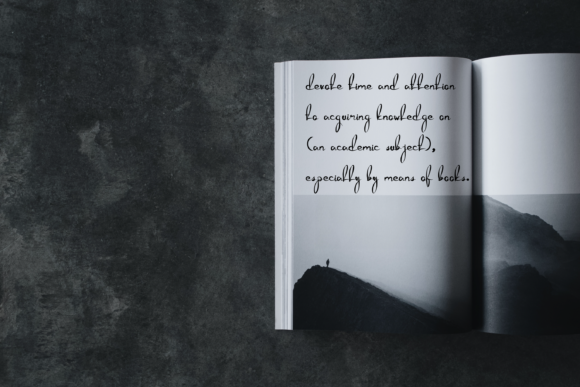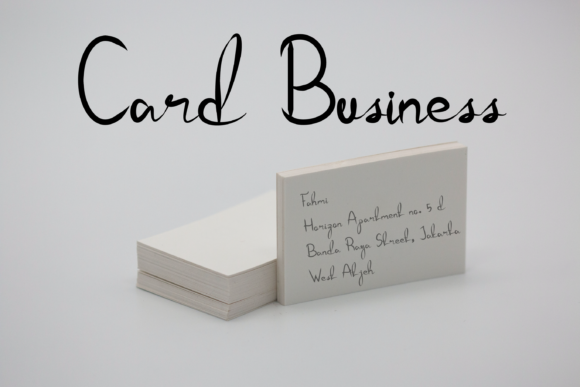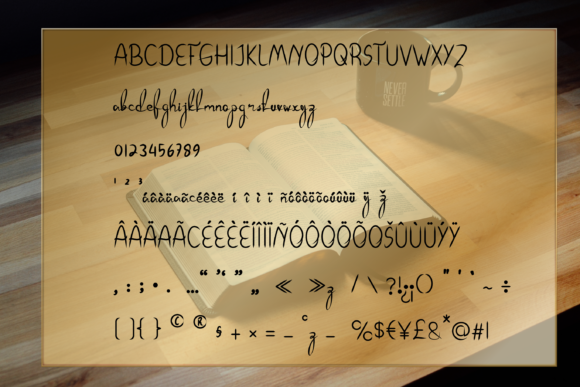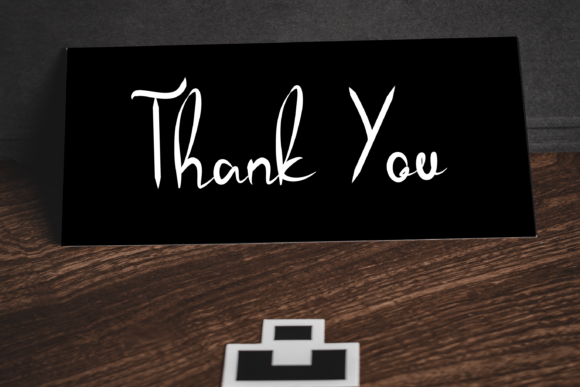
Study Font
About Study Font
Study is a graceful and refined handwritten font that exudes elegance and charm. With its delicate and stylish swashes, this font offers a unique and original look that is perfect for a wide range of crafty ideas. From letterheads and titles to stationery, Study brings a touch of sophistication to your projects.
The slender and dainty characters of Study give it a timeless appeal, making it suitable for various design purposes. Its elegant swashes add a touch of flair and artistic flourish, making it an excellent choice for creating visually appealing and eye-catching designs.
For letterheads, Study adds a touch of professionalism and sophistication to your business or personal correspondence. Its elegant and refined look ensures that your letterheads make a lasting impression on recipients, setting the tone for your brand or message.
When used in titles, Study enhances the visual impact of your designs, making them stand out and grab the attention of viewers. Its delicate swashes can be creatively incorporated into the design to add a touch of artistry and creativity.
For stationery, Study offers a chic and stylish option that elevates the aesthetics of your cards, invitations, and notes. Whether it’s for weddings, parties, or special events, the elegant look of Study brings a sense of luxury and refinement to your stationery designs.
Beyond these specific applications, Study can also be used for a wide range of crafty ideas and DIY projects. Its versatility allows it to be applied to various creative endeavors, such as handmade cards, scrapbooking, and other crafting activities.
In conclusion, Study is an elegant and dainty handwritten font that adds a touch of refinement and artistry to your designs. With its sweet and delicate swashes, it offers an original and appealing look that appeals to a wide range of crafty ideas. Whether you’re creating letterheads, titles, stationery, or engaging in various DIY projects, Study brings a sense of elegance and sophistication to your creations. Embrace the graceful charm of Study to enhance the visual appeal of your designs and leave a lasting impression on your audience.